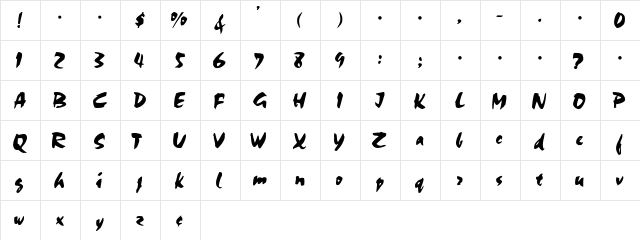
CSD-Chalk-Norma Regular Font Preview
CSD-Chalk-Norma Regular
Design Context for CSD-Chalk-Norma Typeface
CSD-Chalk-Norma is a composed and adaptable typeface that performs quietly and consistently across a wide range of design contexts.
Pro Tip: Use CSD-Chalk-Norma in both headline and body roles to test its range before committing to a single application.